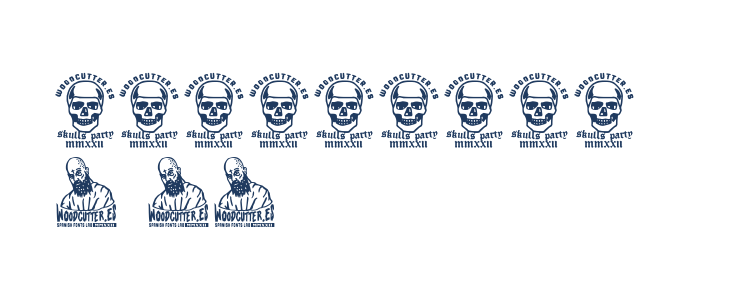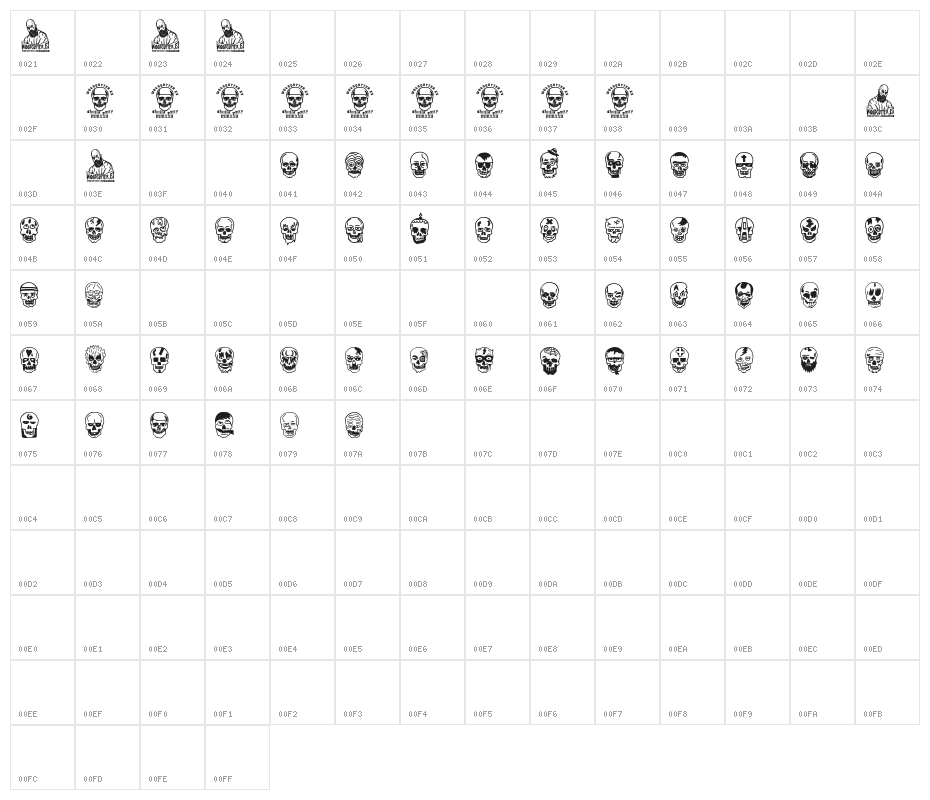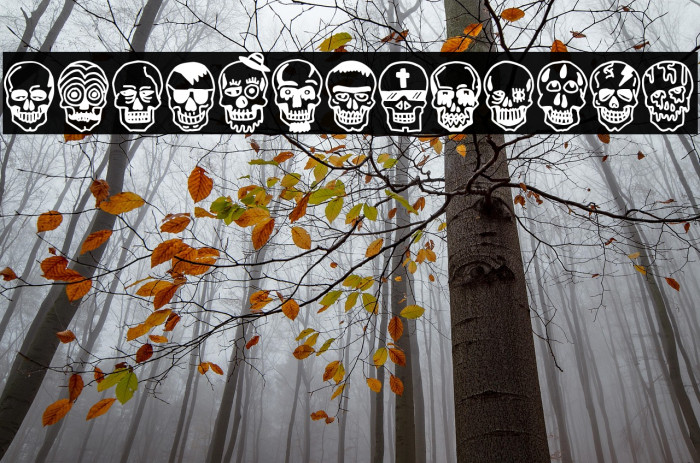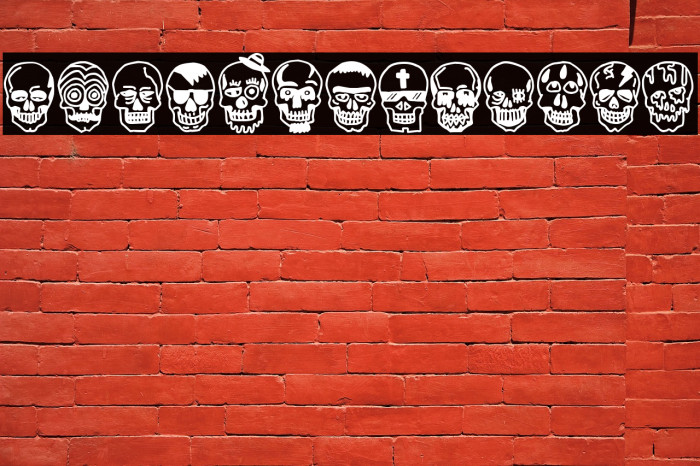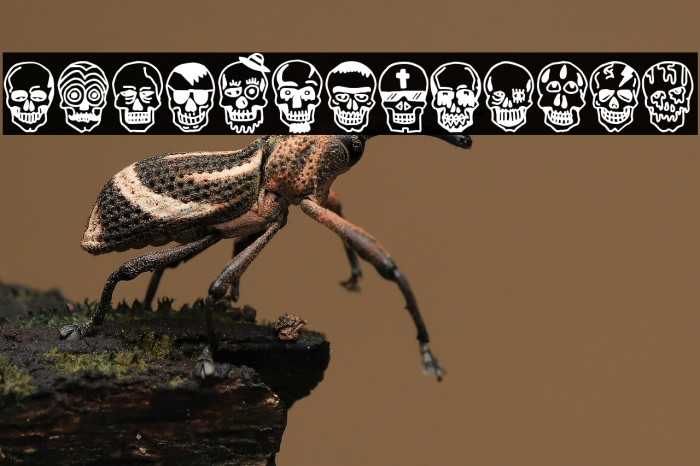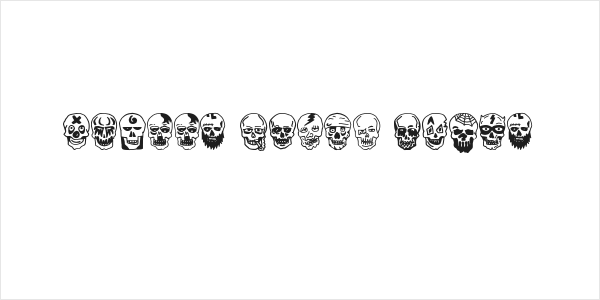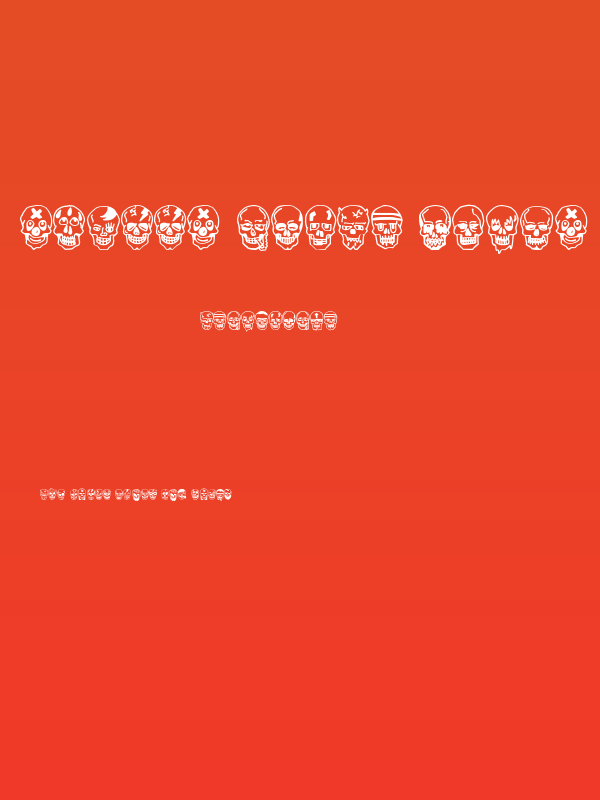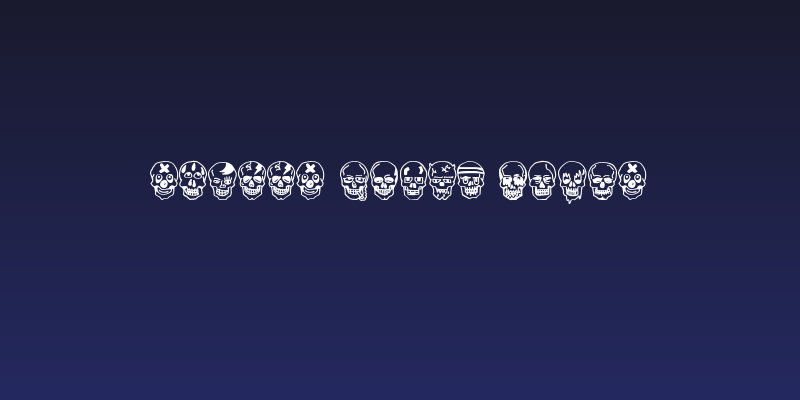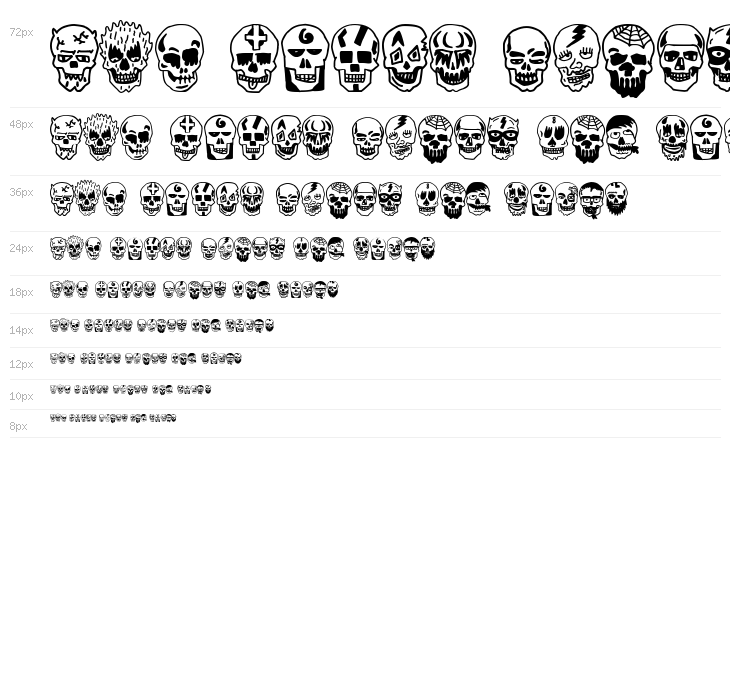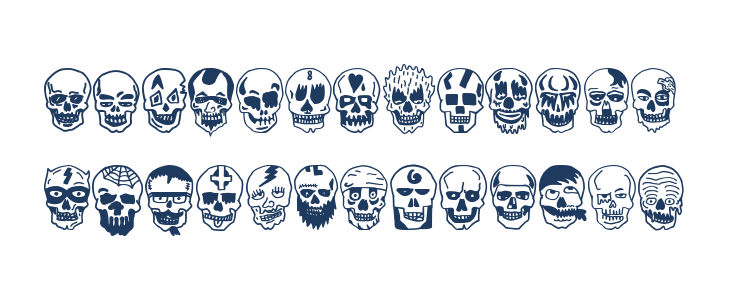
Skulls Party Icons Font
Skulls Party Icons Description
A decorative icon set featuring a wide variety of hand-drawn skull illustrations, each with unique facial expressions, accessories, and stylized details. The icons are bold, monochrome, and display a playful yet edgy aesthetic, suitable for thematic or alternative design projects.
| Overall Style | Decorative, Playful, Edgy |
| Use Case | Icons, Logos, Decorative elements, Themed graphics |
| Proposed Projects | Halloween invitations, party flyers, alternative branding, stickers, tattoo designs, themed merchandise, digital art, and event posters. |